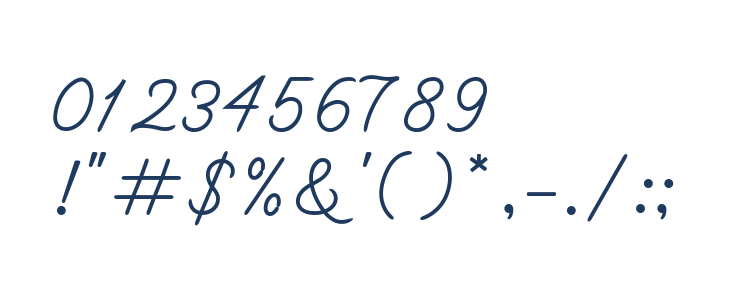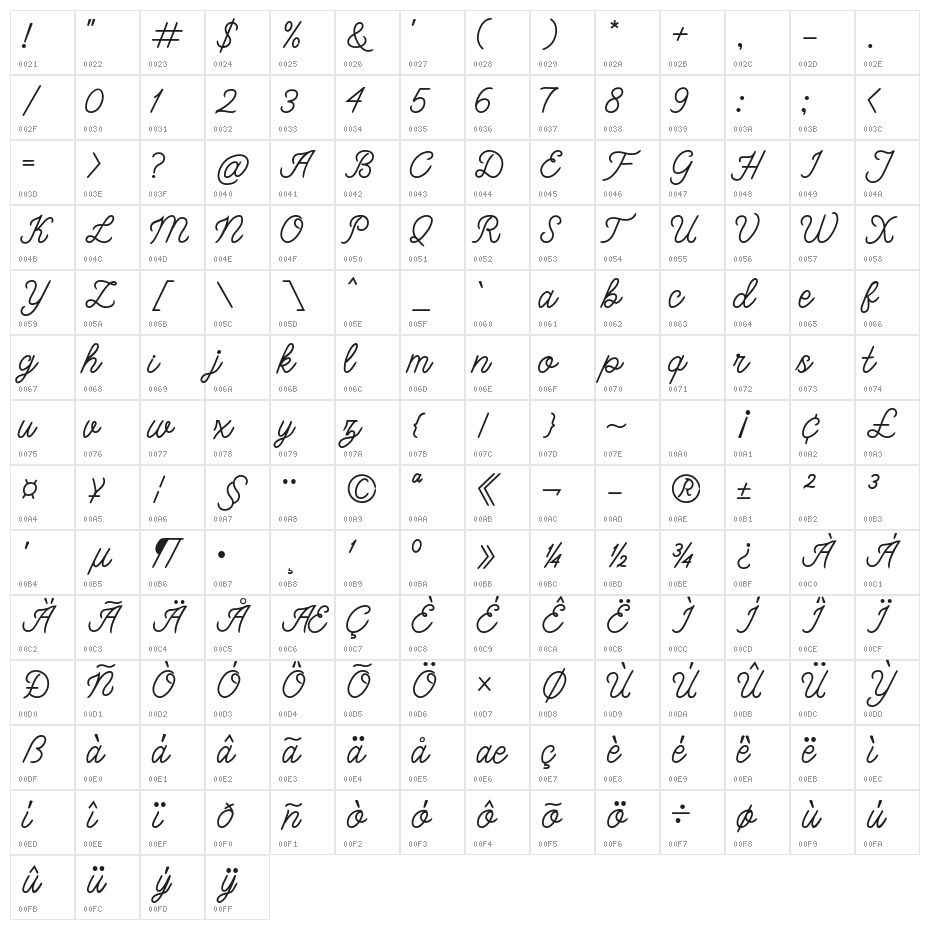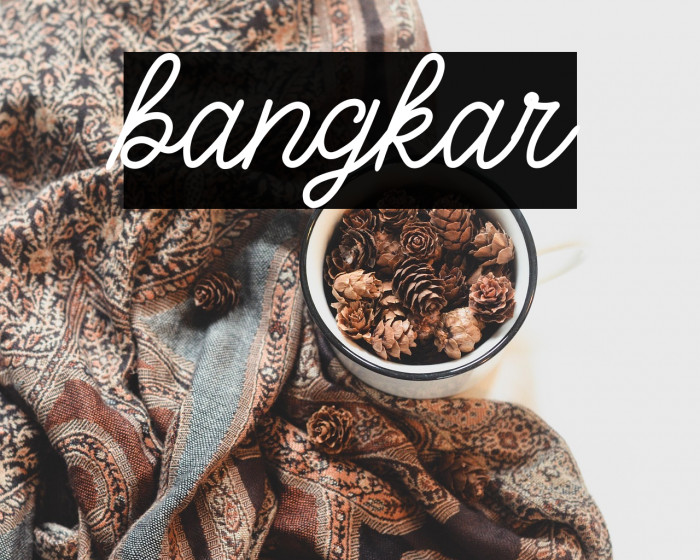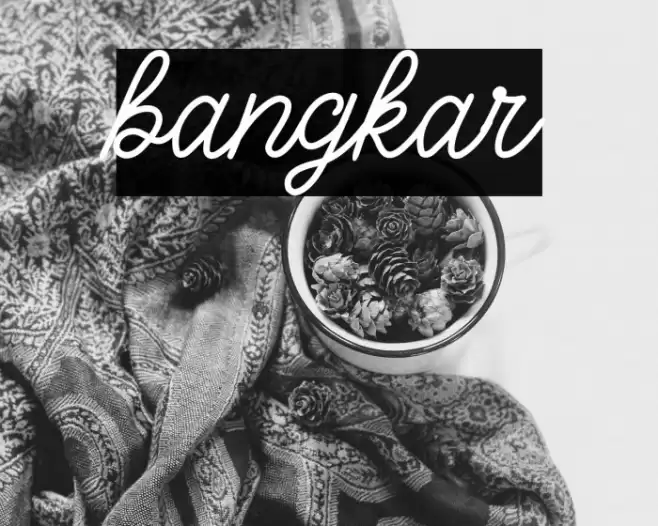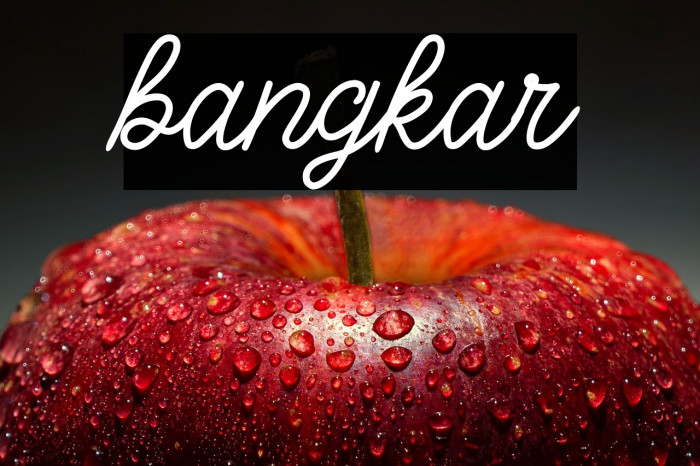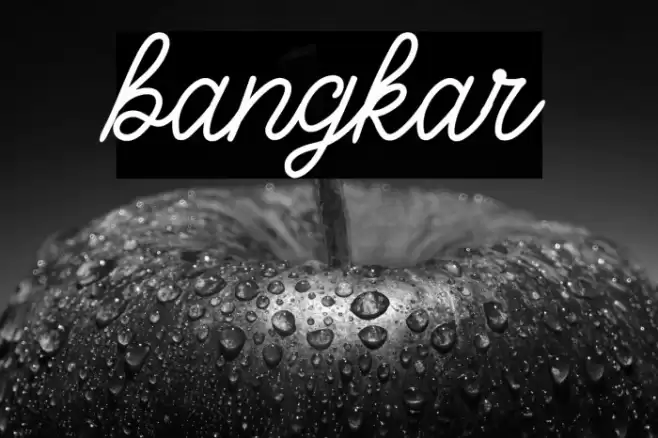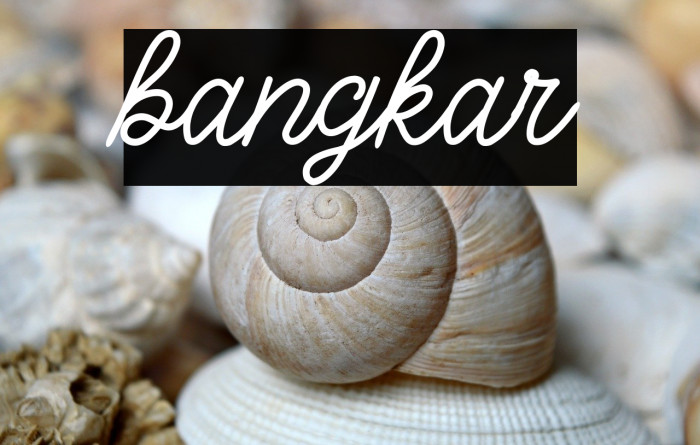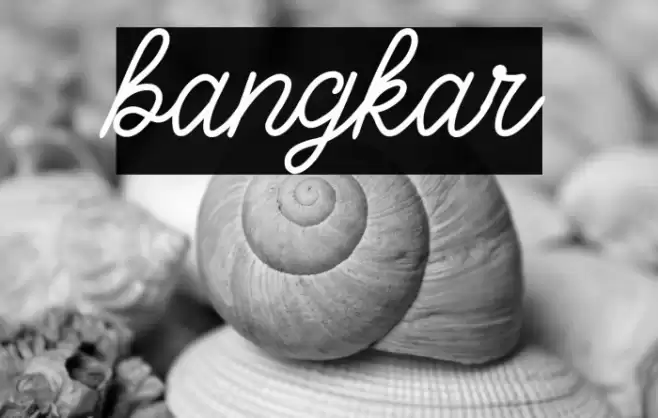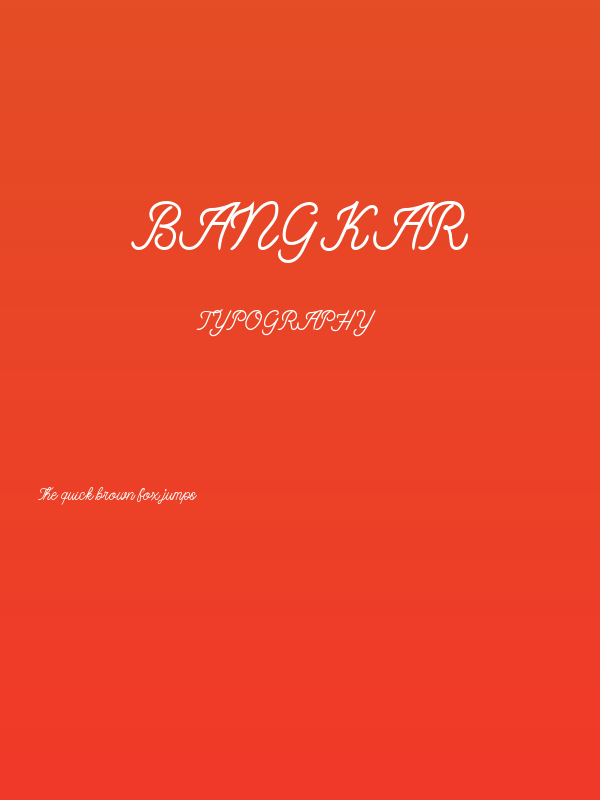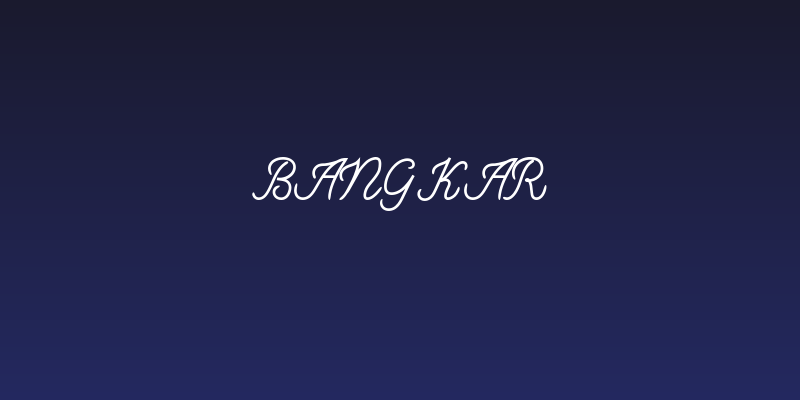
bangkar Font
bangkar Description
This elegant script font features smooth, flowing lines that give it a sophisticated and graceful appearance. The uppercase letters are slightly more ornate, with gentle curves and loops that add a touch of flair. The lowercase letters maintain a consistent flow, making them highly readable while retaining an artistic quality. The numerals are clear and distinct, matching the overall style of the alphabet. Special characters are seamlessly integrated, ensuring versatility in various design contexts. This font exudes a classic charm, perfect for projects that require a touch of elegance and refinement.
| Proposed Projects | Ideal for wedding invitations, elegant branding, greeting cards, and upscale packaging. |